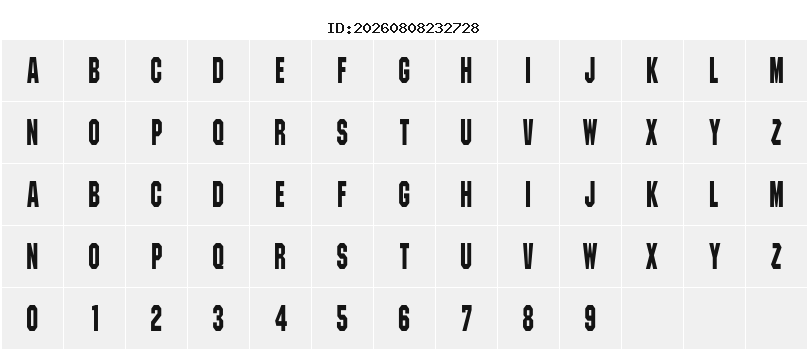
About PittsburghCondensed.ttf
PittsburghCondensed.ttf is a modern, elegant sans-serif font designed for ultimate readability and visual harmony. Perfect for branding, headlines, web design, and print materials.